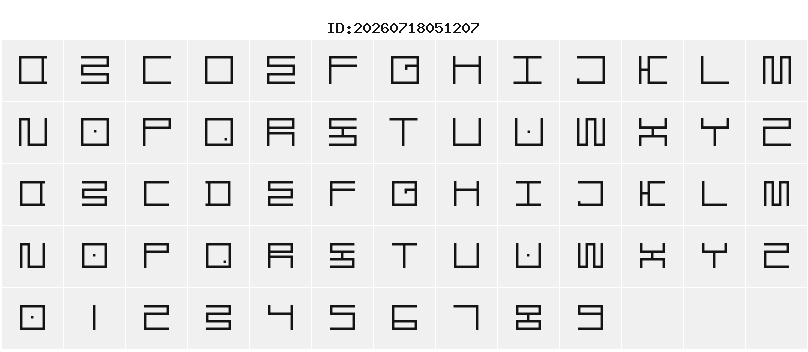
Chop Tofu Preview
About Chop Tofu.ttf
Chop Tofu.ttf is a modern, elegant sans-serif font designed for ultimate readability and visual harmony. Perfect for branding, headlines, web design, and print materials.